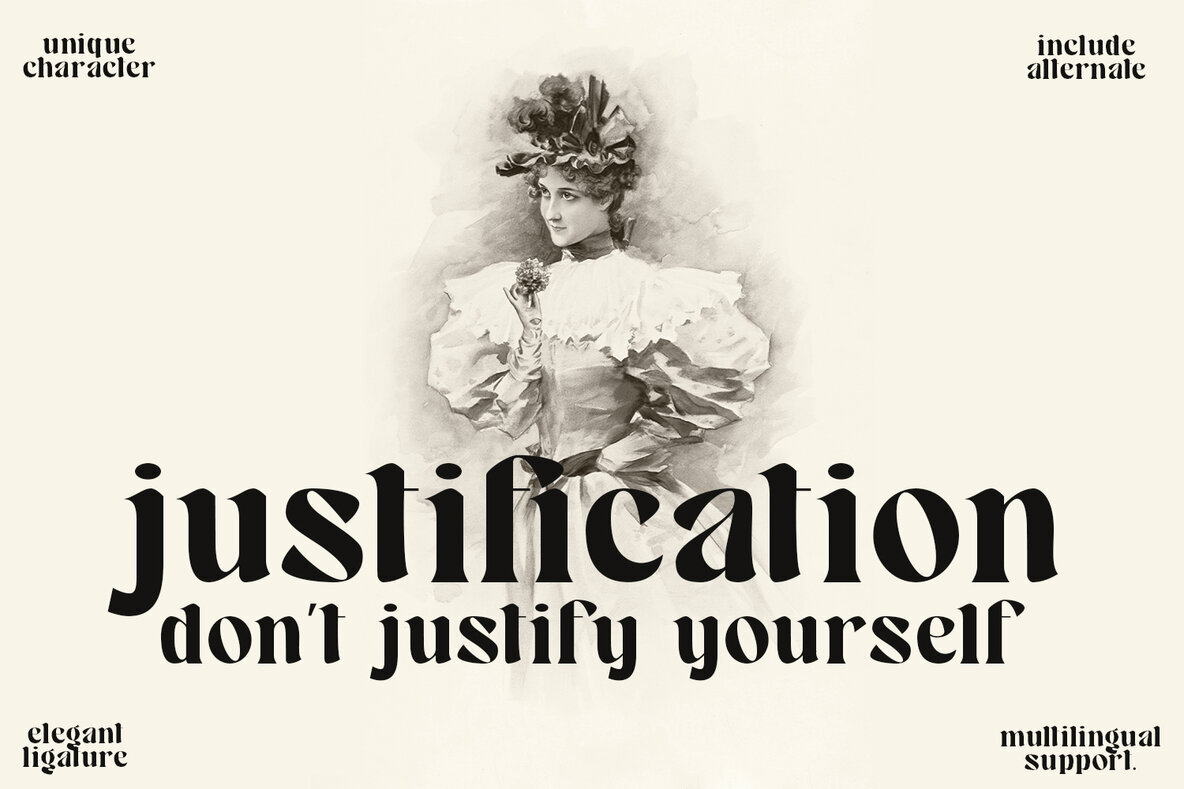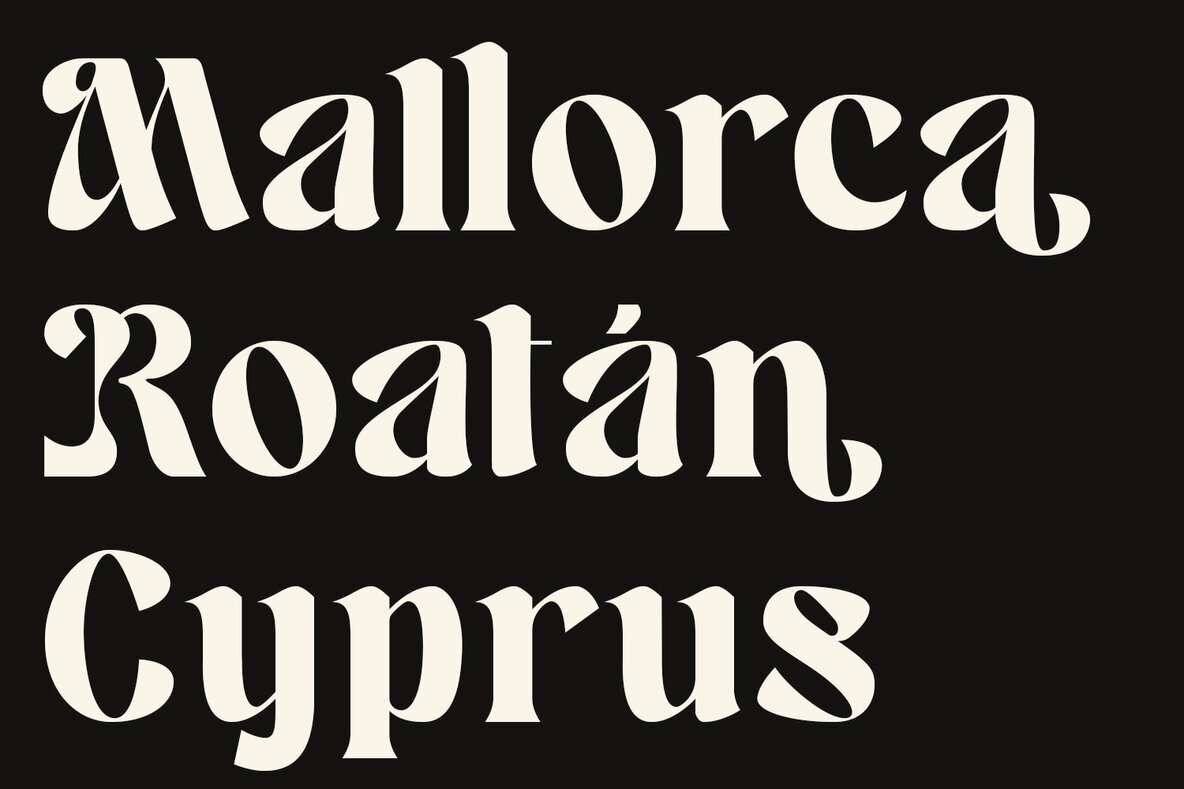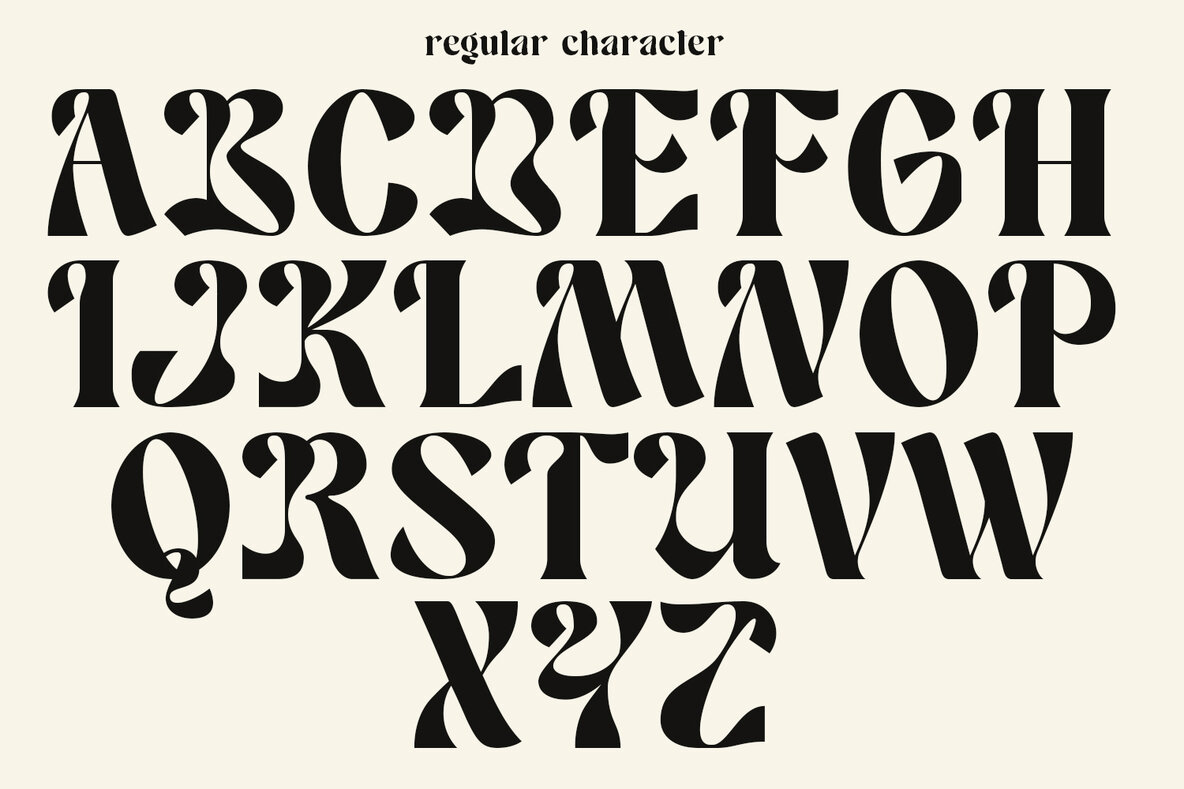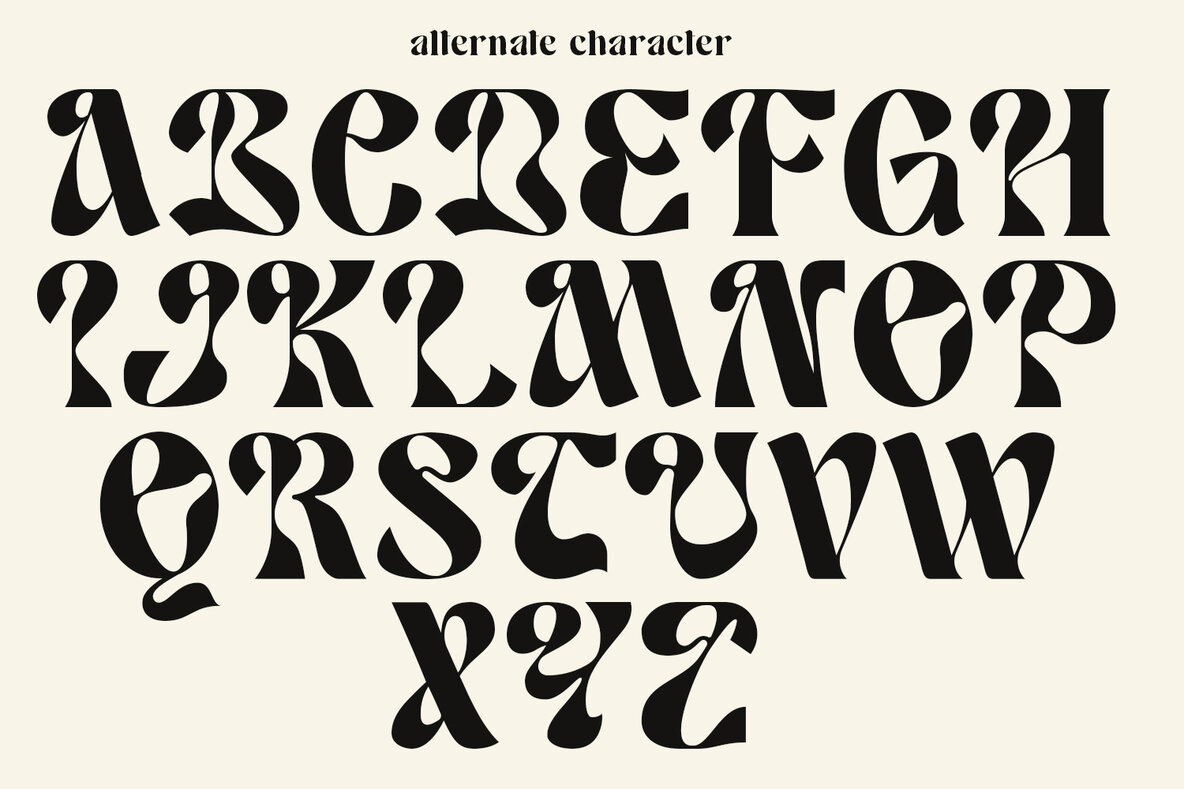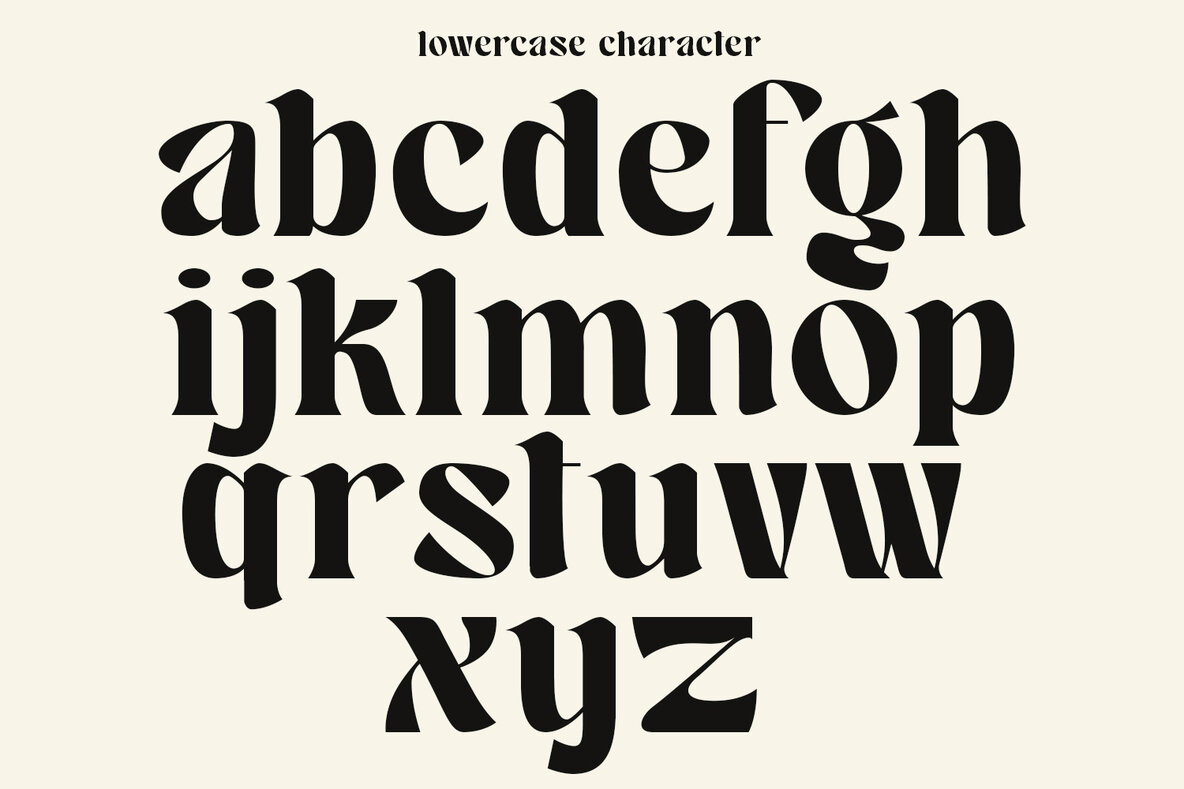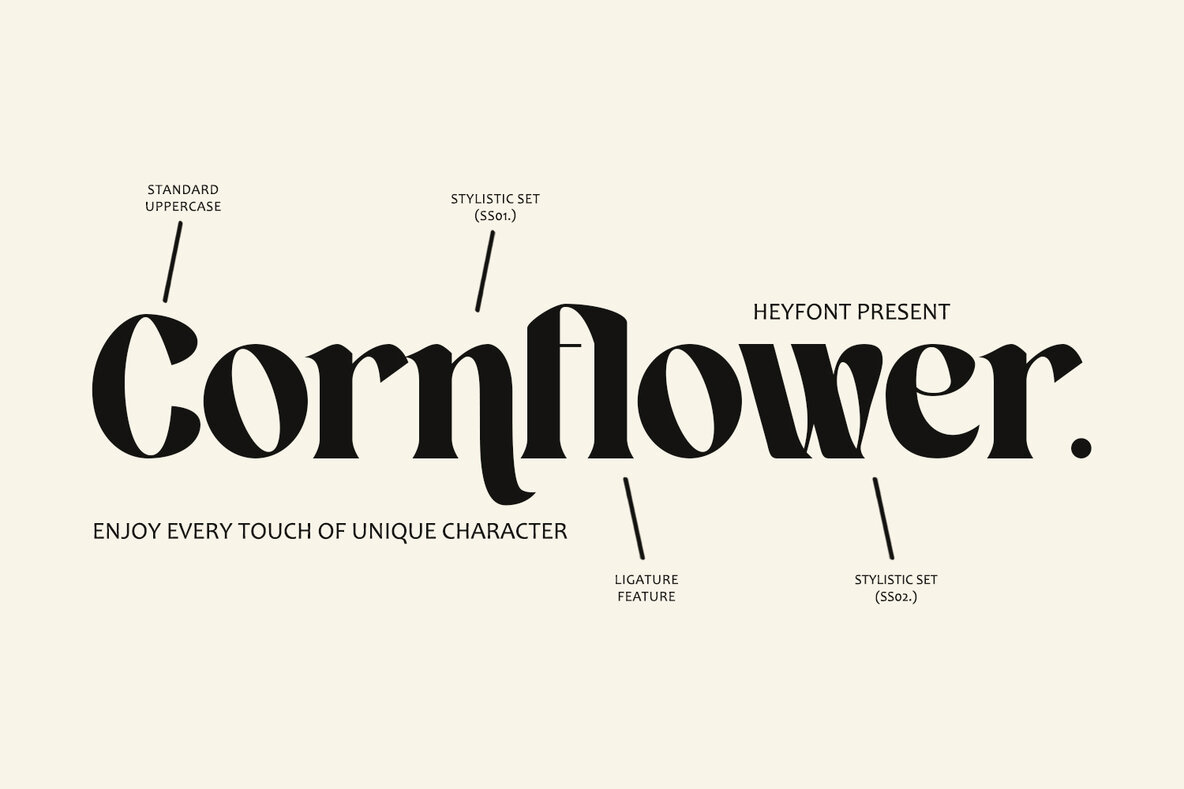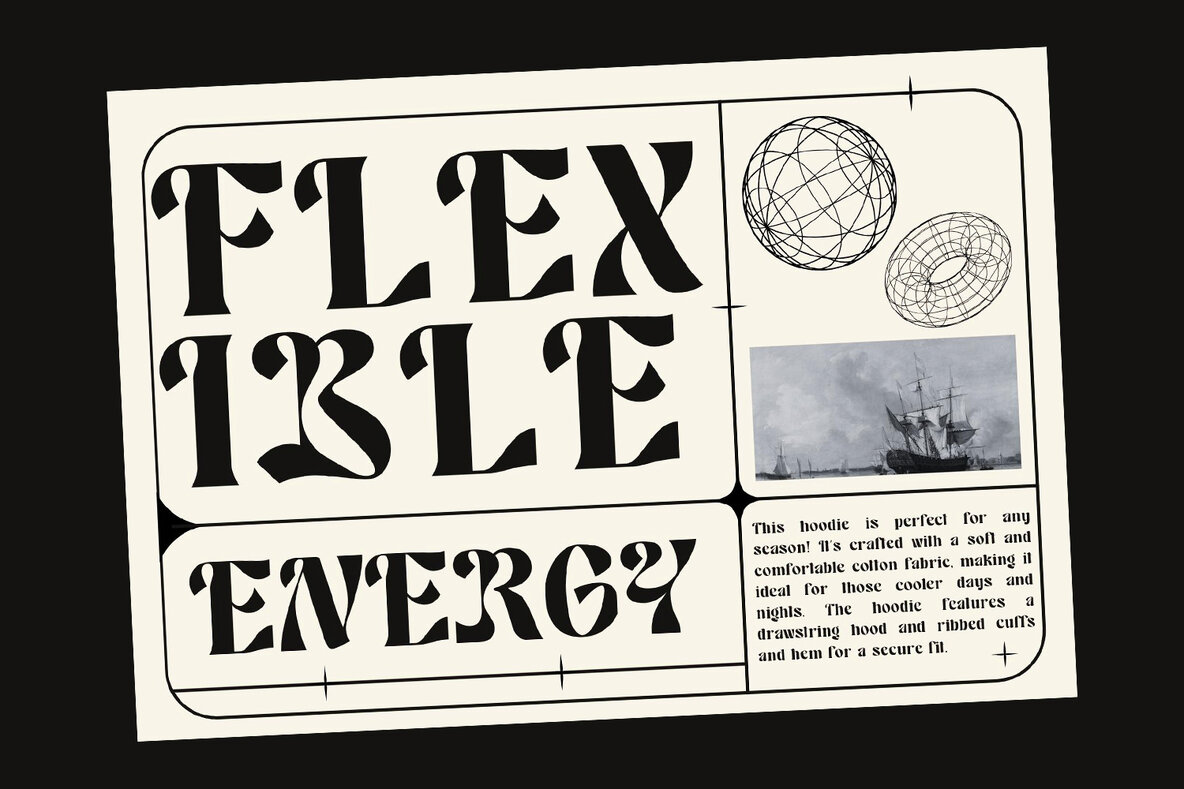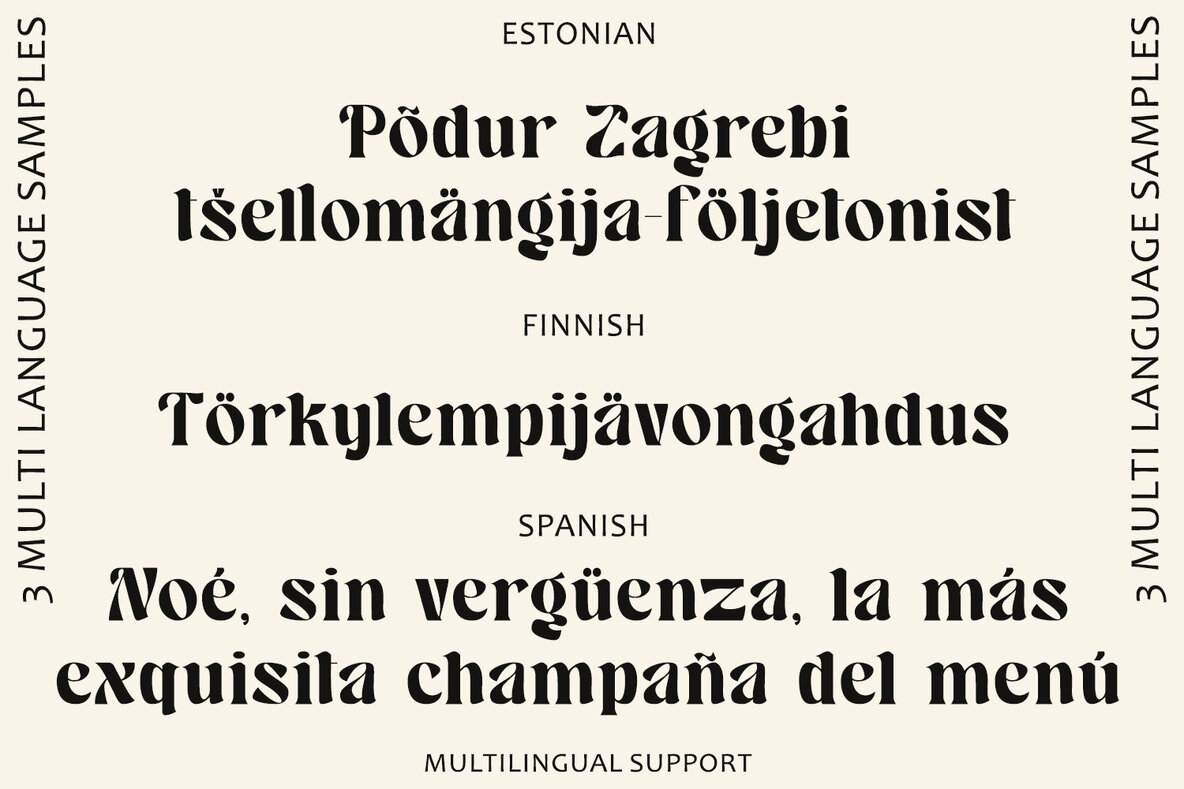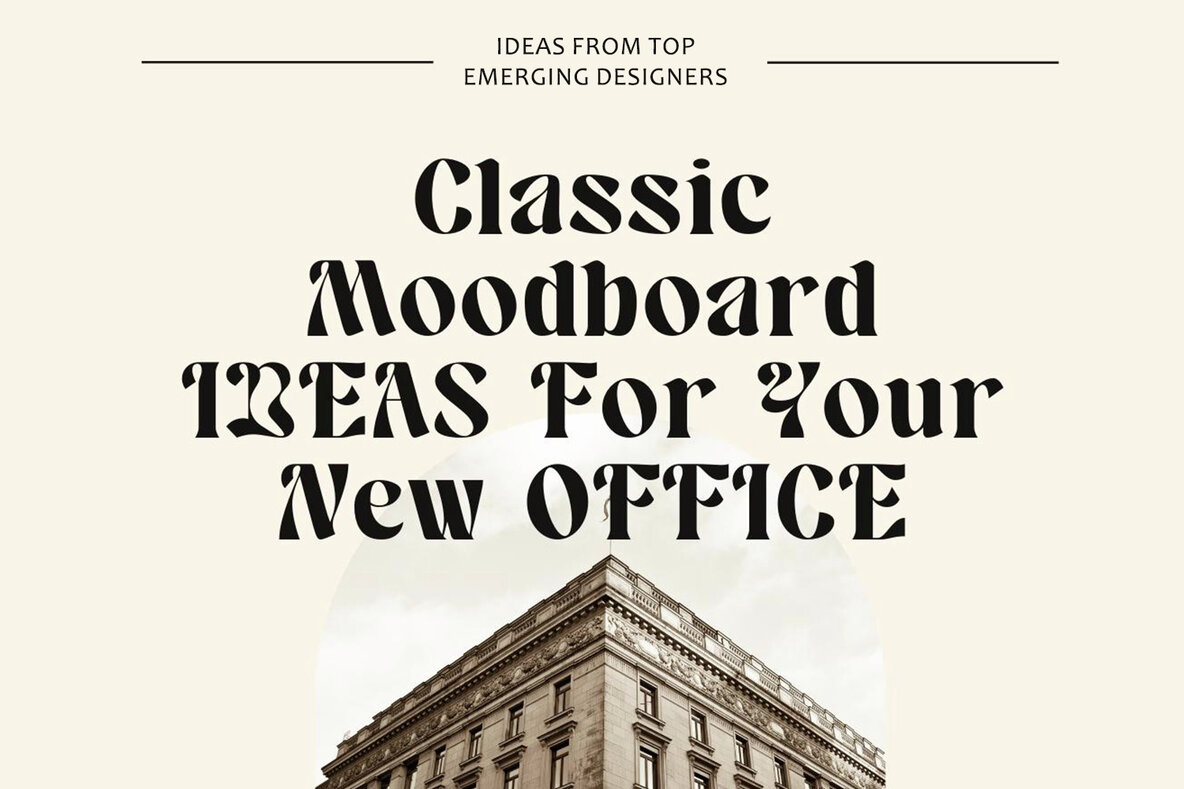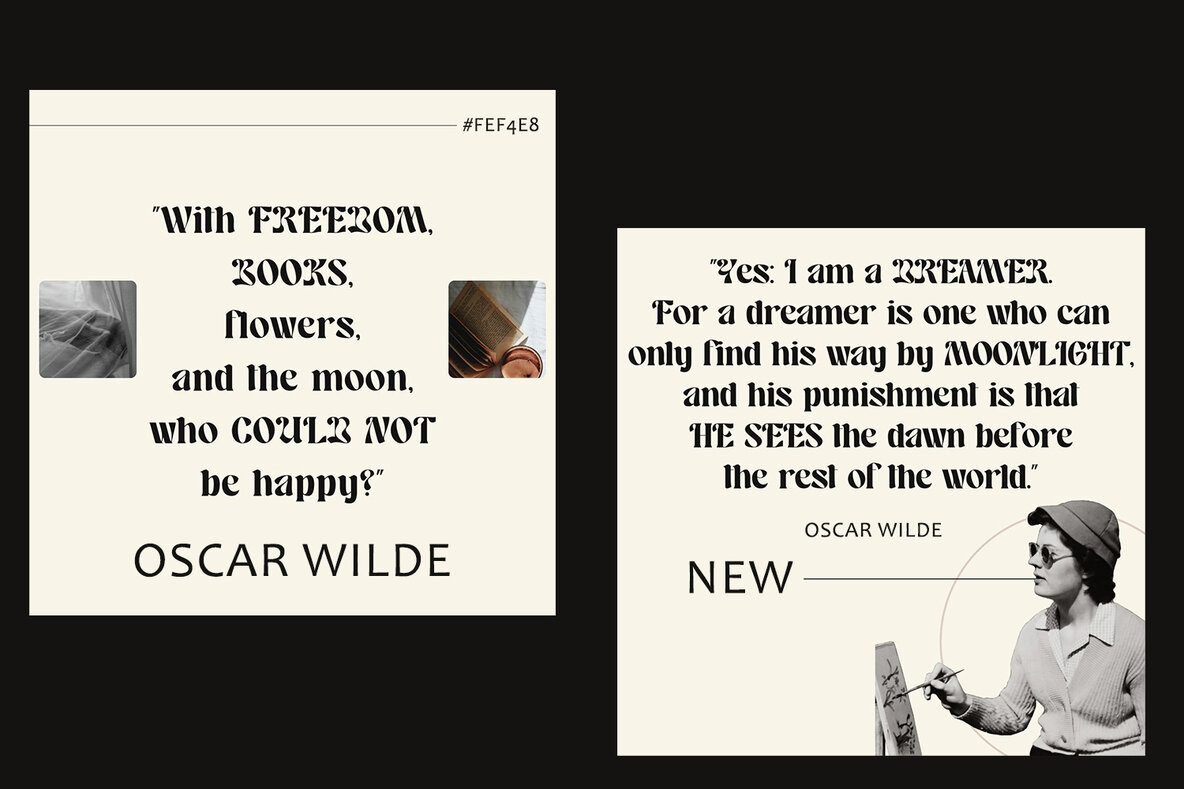
The Breviary typeface by Heyfonts is a distinguished display typeface that blends the elegance of serif elements with modern, distinctive features. It enhances both traditional and contemporary design projects, making it a versatile choice for various applications. When choosing the Breviary typeface, designers can align it with overall design goals, consider their intended audience, and adapt it to fit various contexts effectively.Breviary: A Unique Serif Display Typeface
Key Characteristics of Breviary